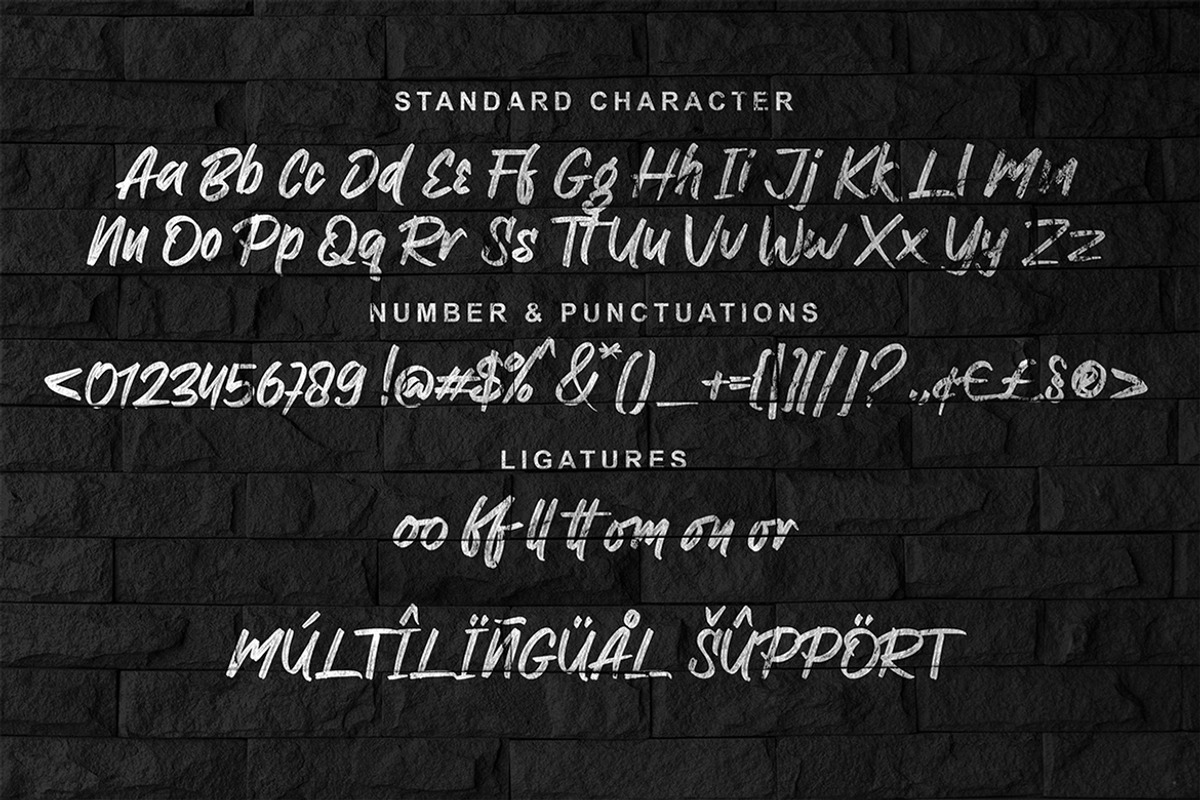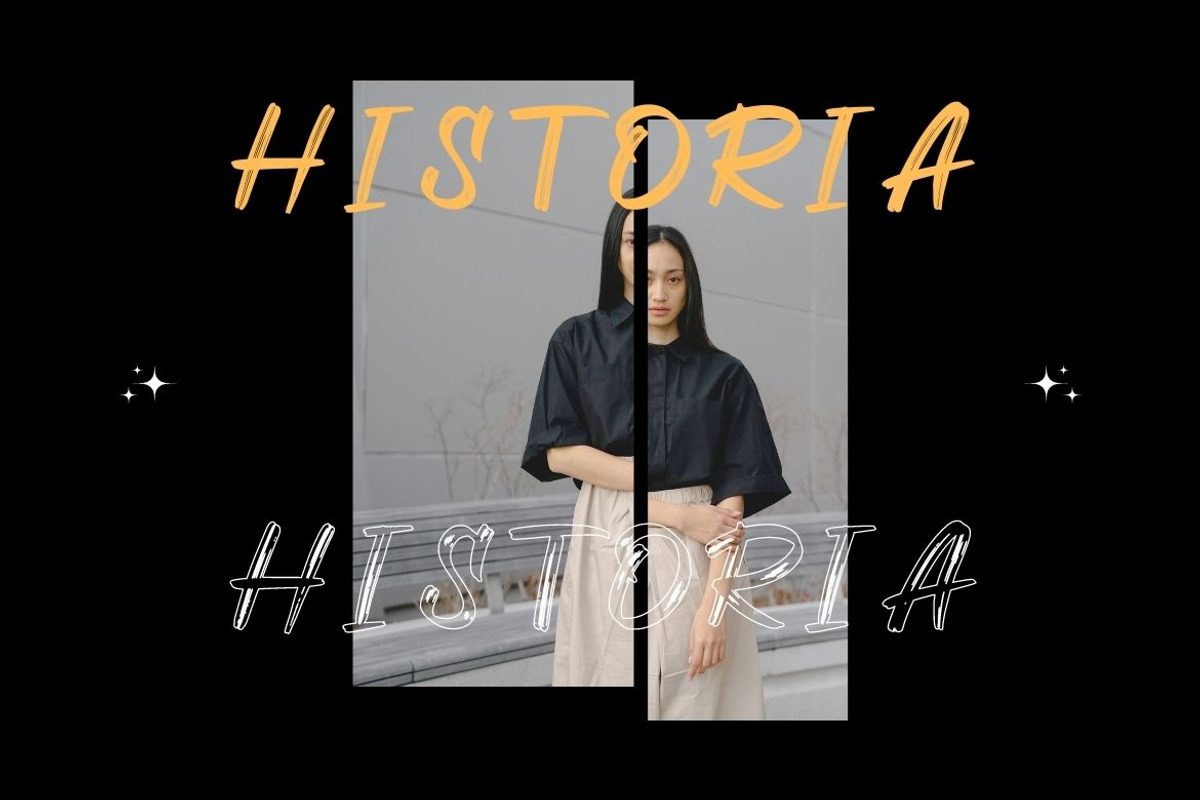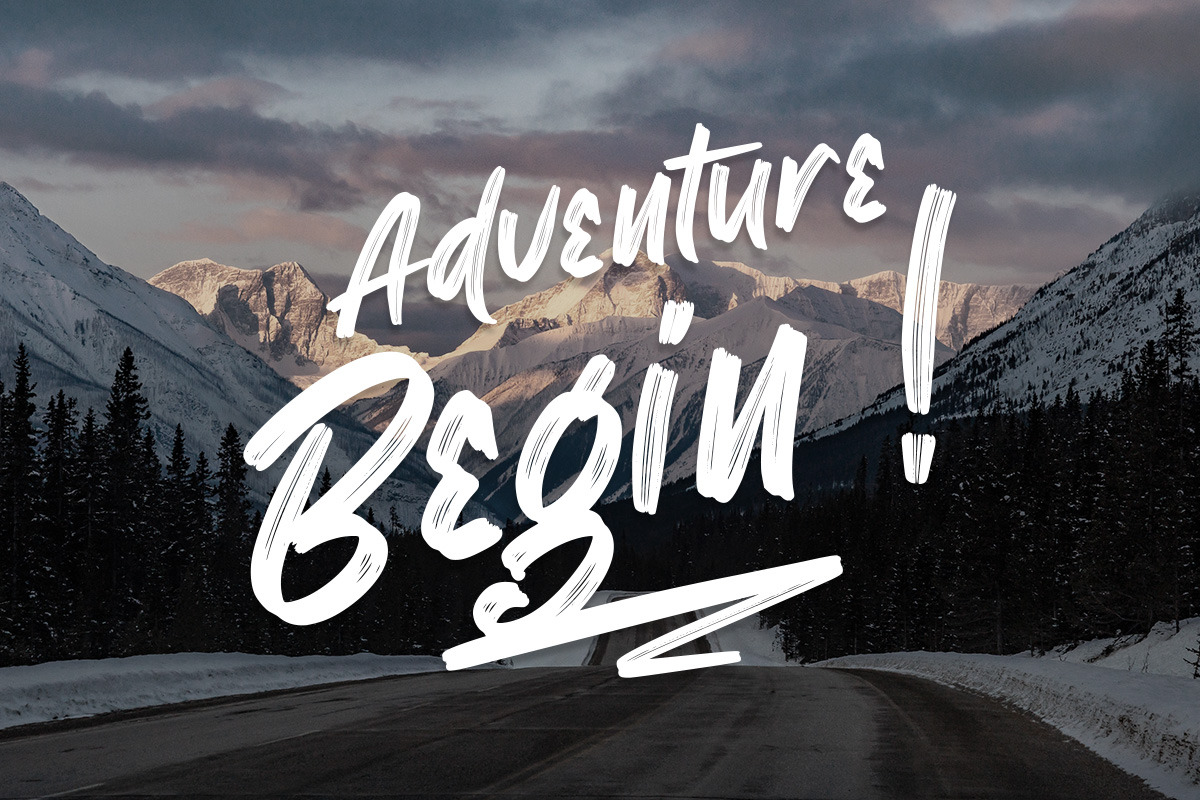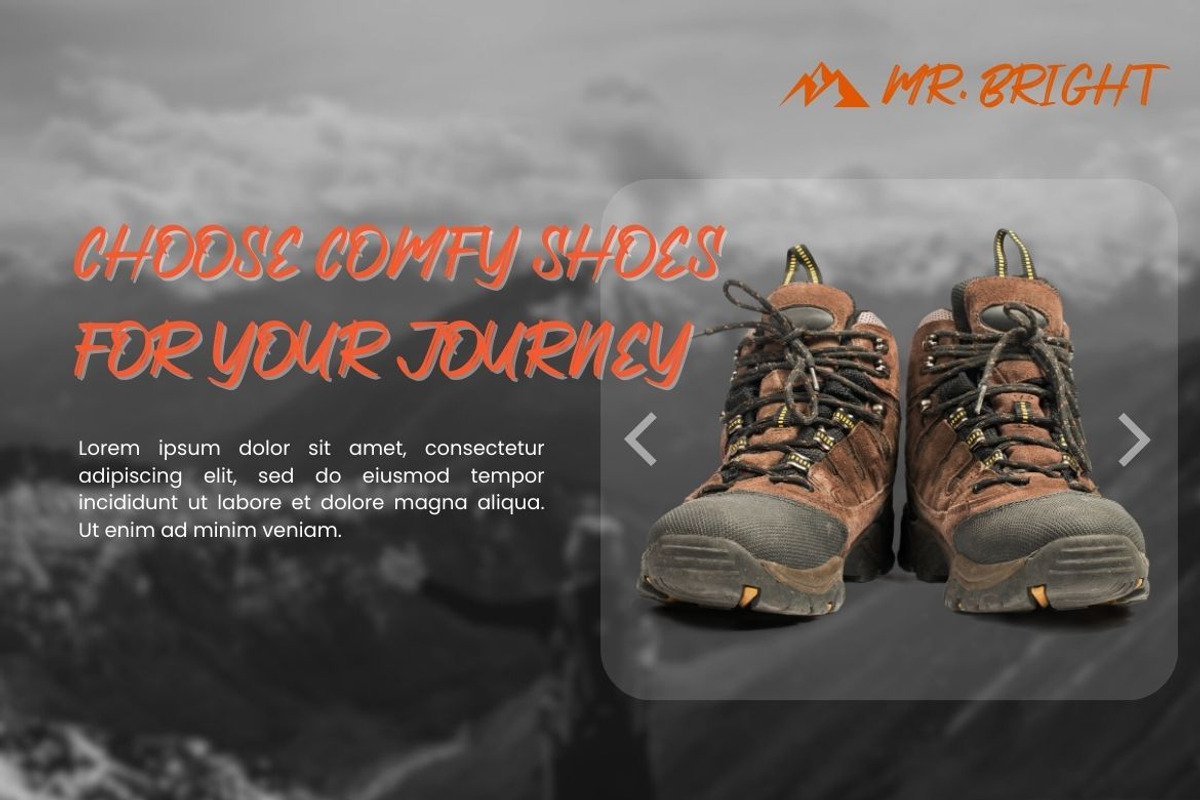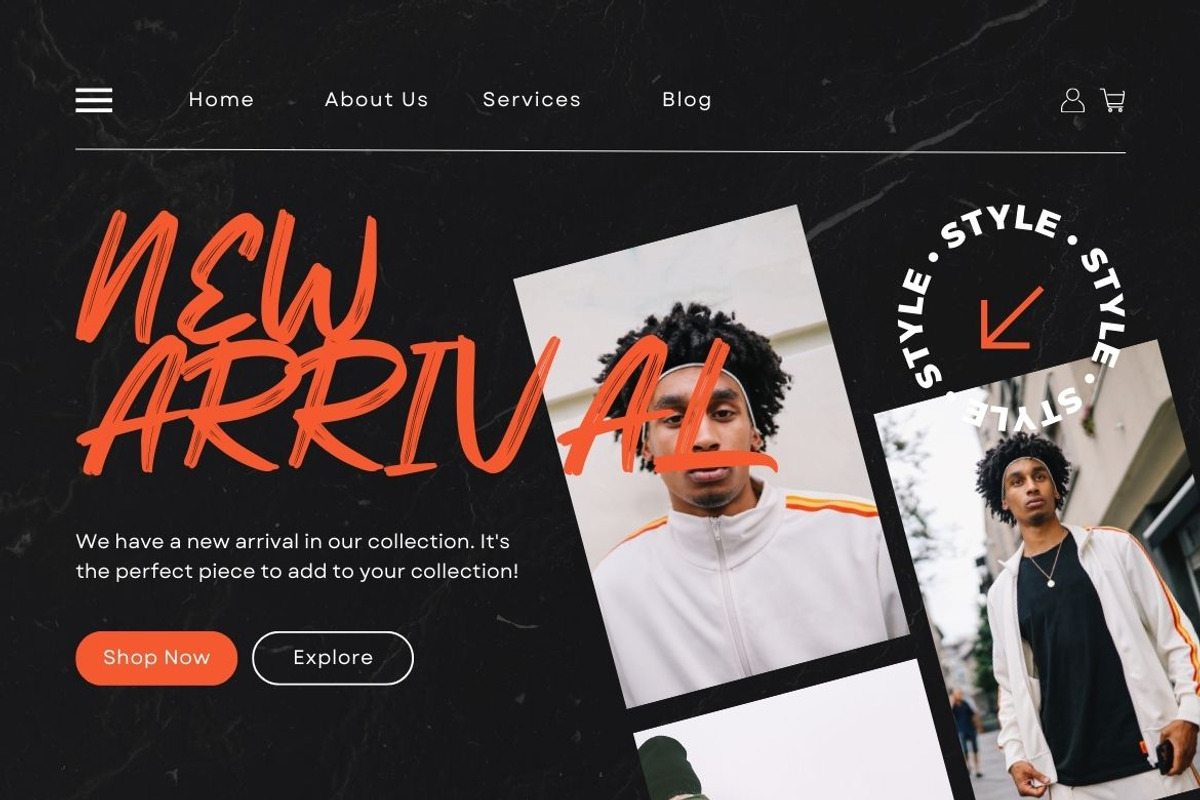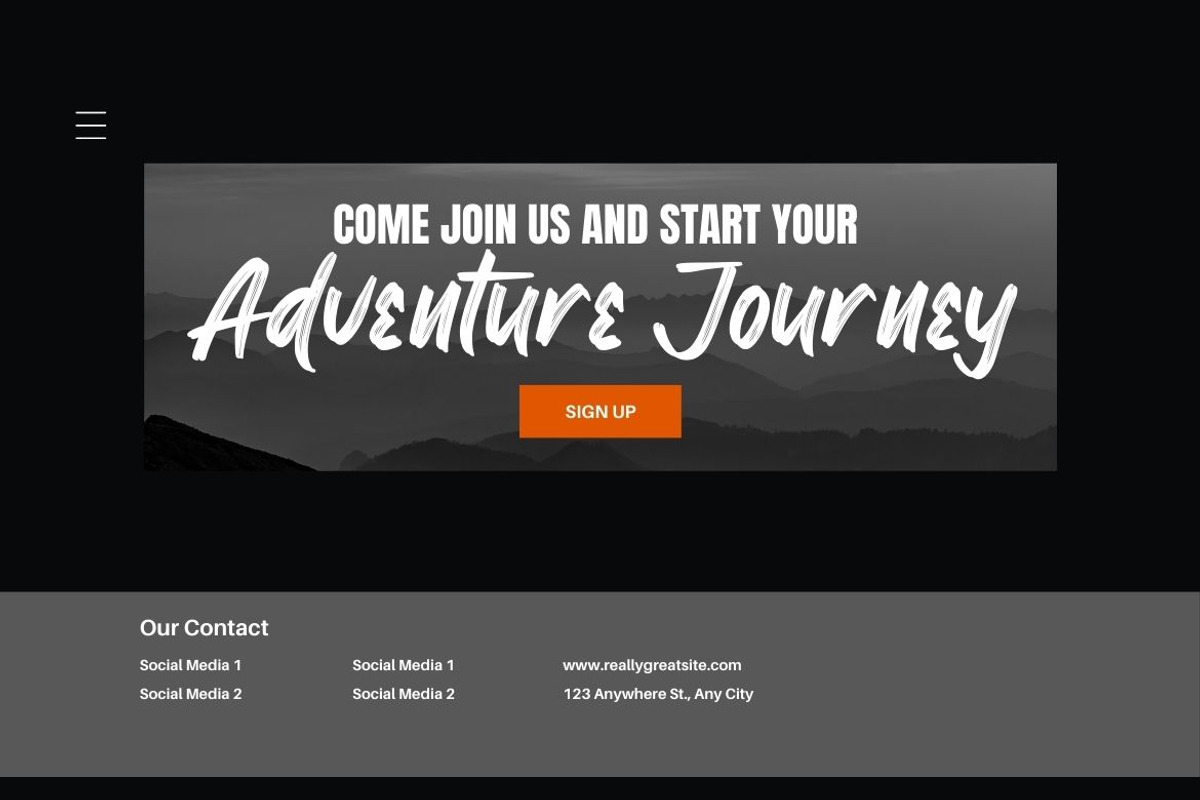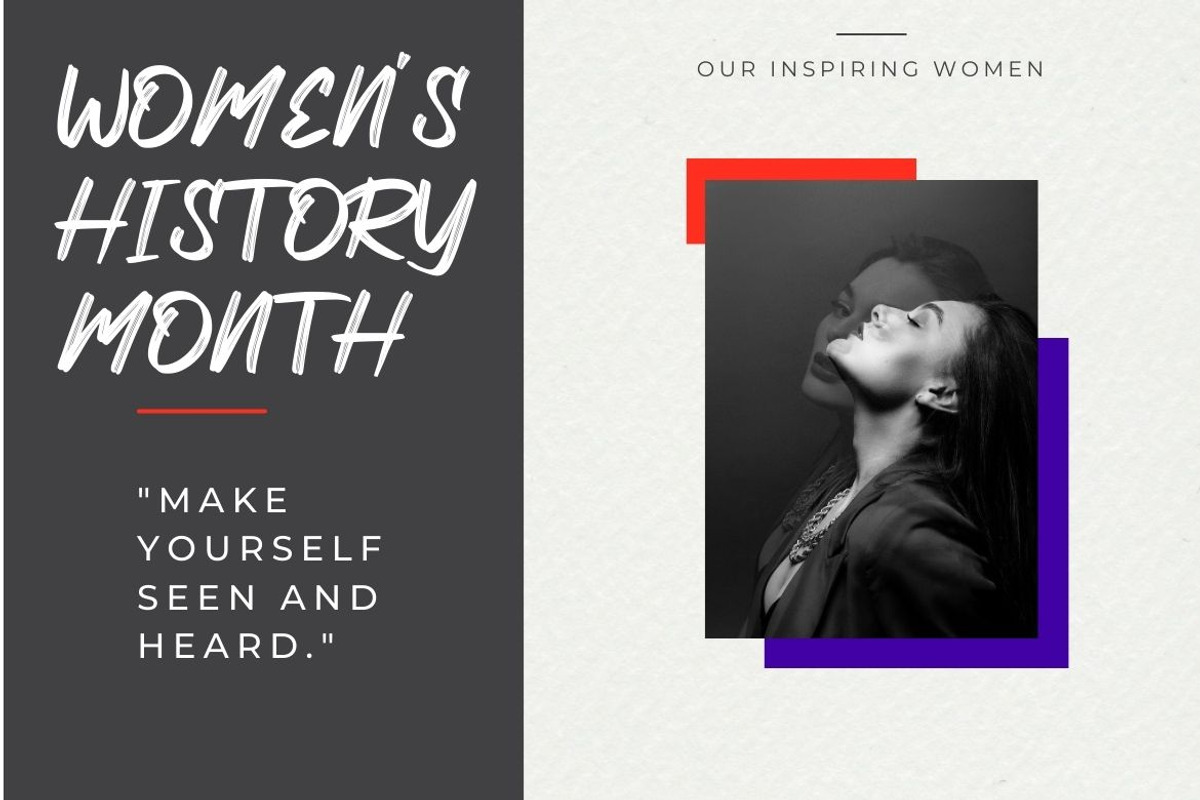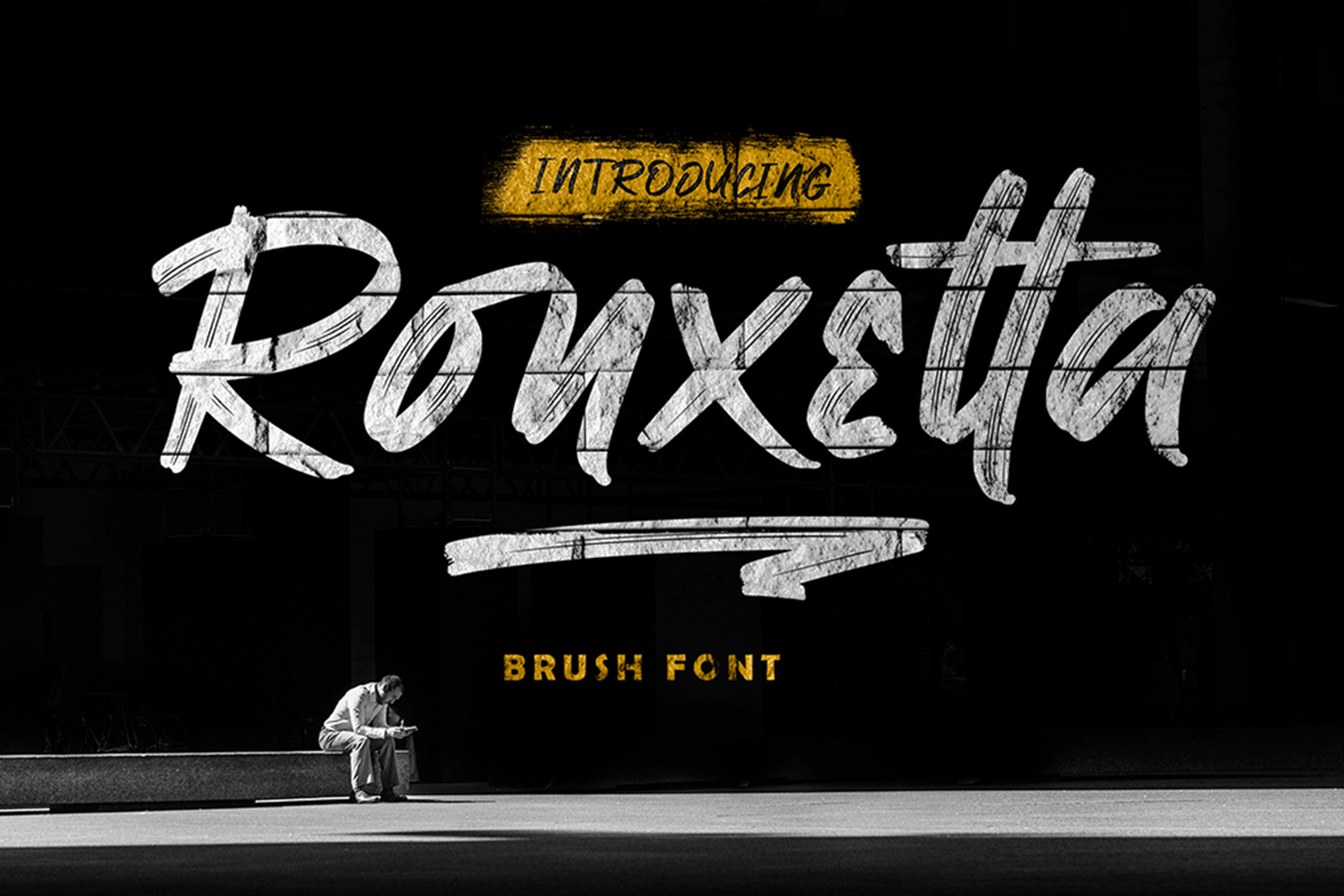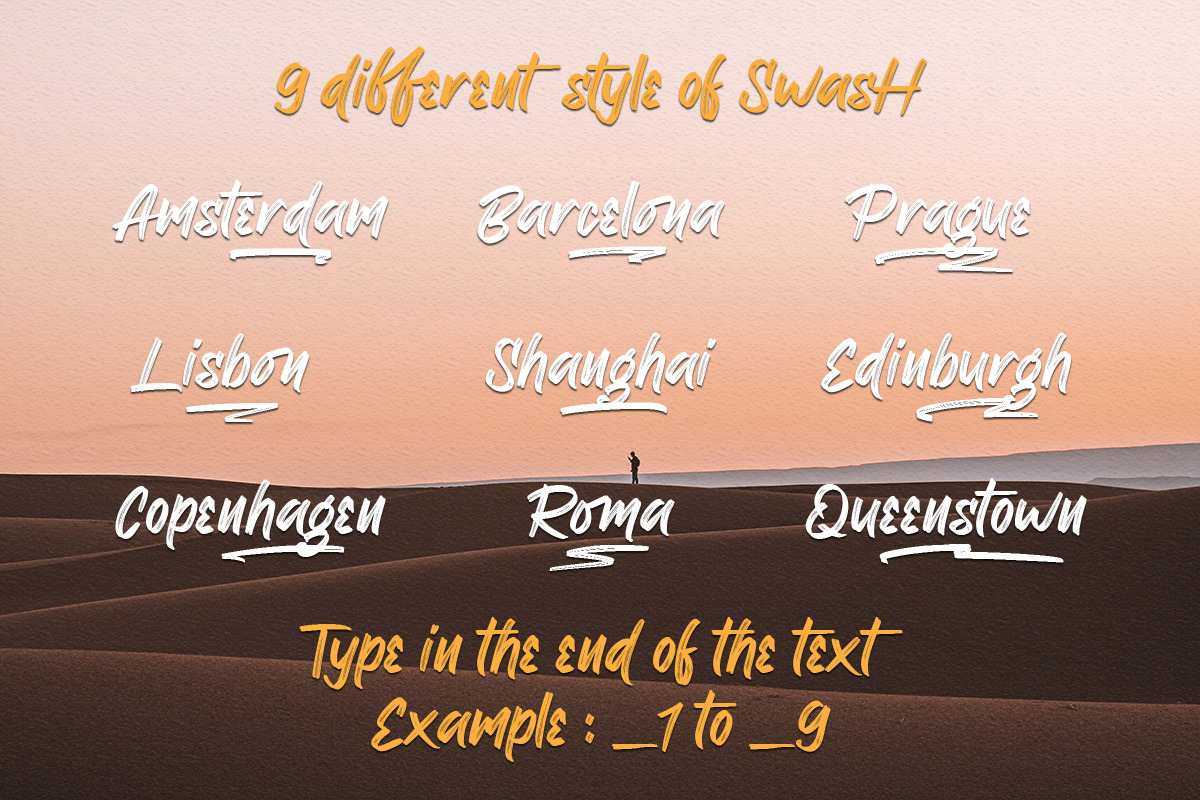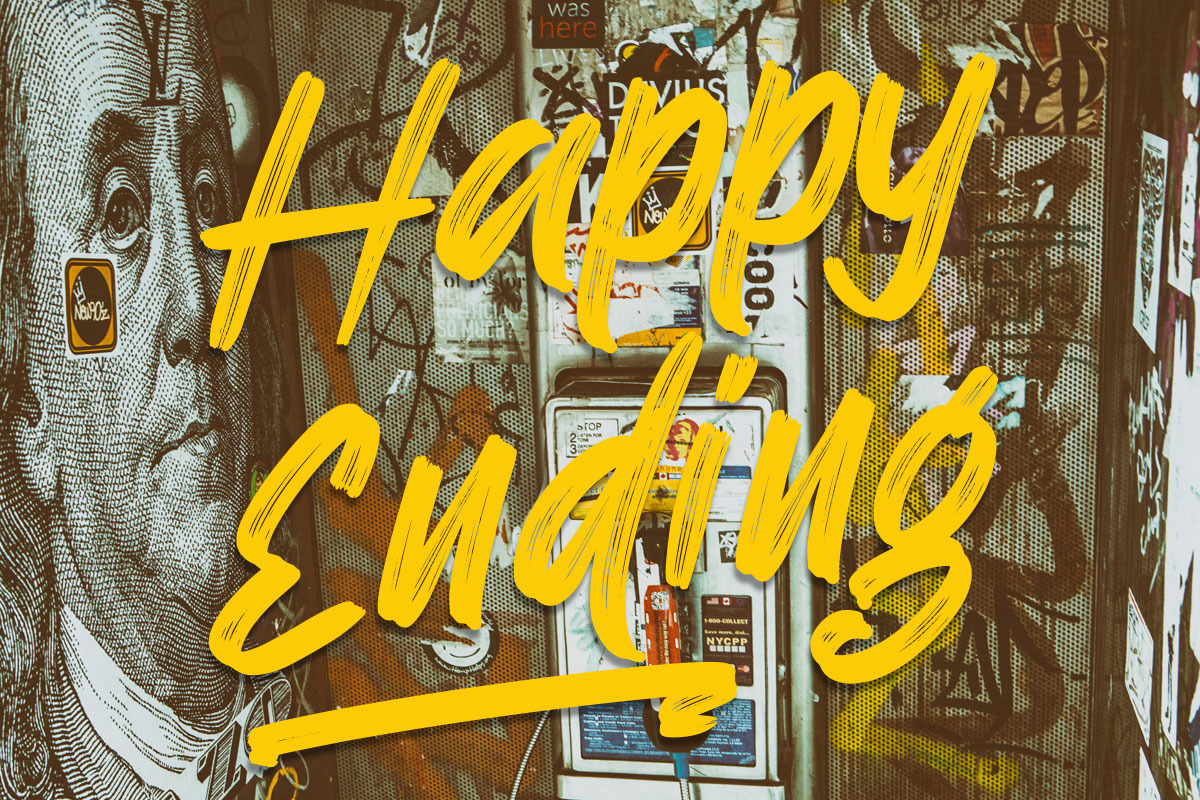
Ronxetta | Brush Font
Ronxetta Brush Font , with authentic dry brush imperfections, and a very bouncy baseline It has a perfectly paired with Swash. Ideal for logos, handwritten quotes, product packaging, header, poster, merchandise, social media & greeting cards.